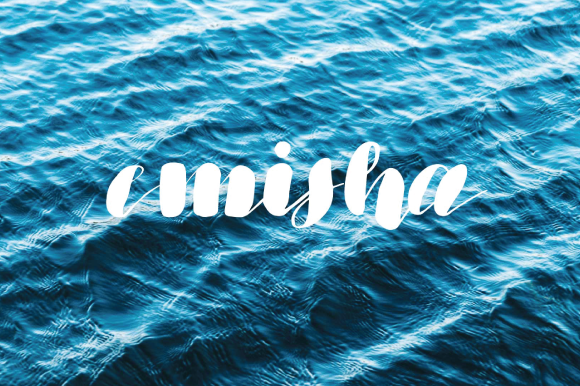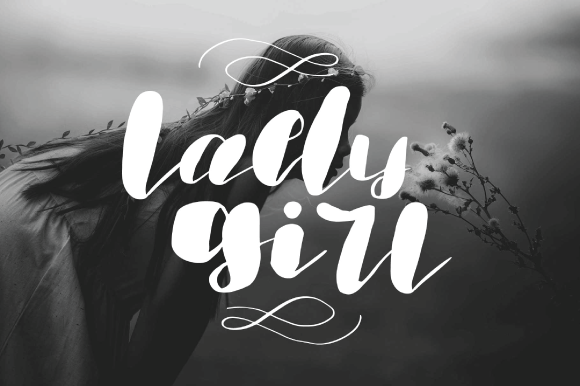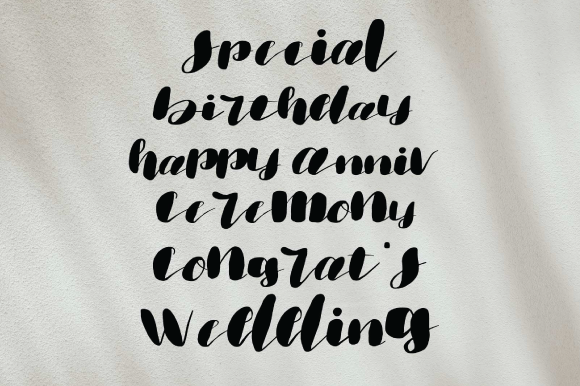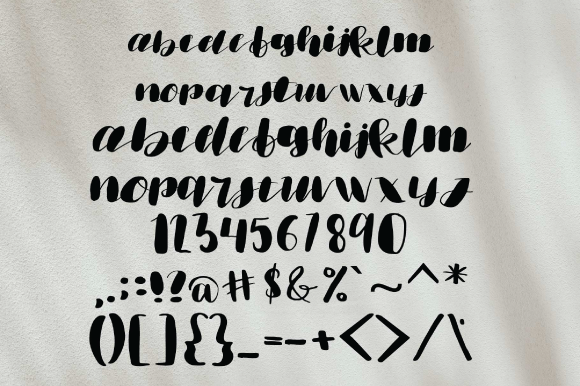
HomeScript FontsEmisha Font Script Fonts Emisha Font FacebookXPinterestWhatsApp Emisha Font Poster 2 Emisha Font Poster 3 Emisha Font Poster 4 About Emisha Font Emisha is a bold & abstract handwritten font featuring charming letters. Get inspired by its contemporary coolness! DOWNLOAD NOW People also explored Martyn Font Beloved Font Eldorado Font Delaney Script Hetbig Font Informe Font Better Brush Font Tarendra Naushad Font The Comet Font 330 0 TagsEmisha Font Previous articleGeotermal FontNext articleWitch Girls Font LEAVE A REPLY Cancel reply Comment: Please enter your comment! Name:* Please enter your name here Email:* You have entered an incorrect email address! Please enter your email address here Website: Save my name, email, and website in this browser for the next time I comment. Personal Use Free Romantic February Personal Use Free Read more about this font Made of Concrete Personal Use Free Read more about this font Farmgarden Personal Use Free Read more about this font Arnitta Callina Personal Use Free Read more about this font BLOG Elegant Wedding Invitation Fonts – Handwritten & Script Fonts Elegant Wedding Invitation Fonts Your wedding day is one of the most important moments of your life, and every detail matters—including your invitation design. Our... To increase your work productivity, choose the most readable fonts. Best Fonts for YouTube Videos: Make Your Thumbnails Stand Out Transform Your Website: Elevate Your Typography with 7 Best Web Font Generators